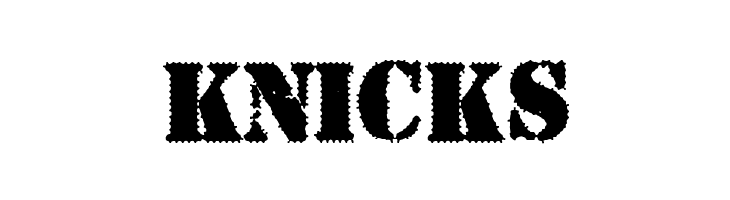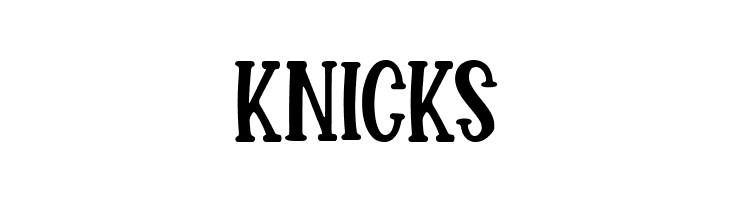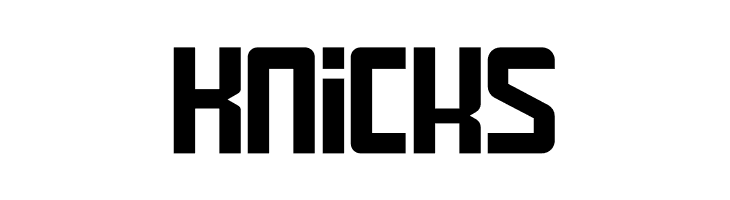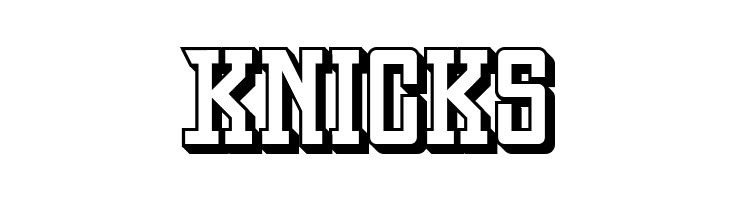
A bold, elegant serif font with high contrast and sharp serifs.
A playful, handwritten font with a whimsical and modern style.
A playful, casual handwritten font with smooth, flowing letterforms.
A playful, casual handwritten font with smooth, flowing lines.
A bold, italic font with a retro arcade style and dynamic, angular design.
A playful, handwritten font with a casual and dynamic style.
A graceful, cursive handwritten font with a modern calligraphic style.
A bold, geometric font with a futuristic and industrial design.
A bold, 3D geometric font with a retro video game aesthetic.
A bold, 3D italic font with a futuristic and dynamic style.
A bold, geometric font with a futuristic and industrial design, featuring high contrast and condensed width.
A bold, angular, and condensed italic font with a futuristic style.
A bold, geometric font with sharp angles and an expanded width.
A bold, angular, and expanded italic font with a modern, dynamic style.
A bold, geometric font with a striped gradient effect, ideal for modern designs.
A bold, italicized font with a futuristic gradient effect created by horizontal lines.
A bold, geometric font with a halftone effect and modern style.
A bold, futuristic font with a halftone effect and italic slant.
A bold, angular, and dynamic font with a futuristic and energetic style.
A bold, geometric font with a futuristic and digital aesthetic.
A bold, angular, and futuristic font with sharp geometric lines.
A bold, angular font with a geometric and dynamic style.
A bold, angular, semi-italic font with a modern and dynamic style.
A bold, angular, and italic font with a futuristic and aggressive style.
A bold, geometric font with a strong, industrial aesthetic.
A bold, geometric, italic font with sharp angles and strong visual impact.
A bold, futuristic font with a two-tone gradient effect and geometric design.
A bold, italicized font with a two-tone striped design, exuding a futuristic and dynamic style.
A modern, geometric font with sharp, angular lines and a futuristic style.
A playful, hand-drawn font with bold, irregular strokes and a casual vibe.
An elegant, flowing script font with a classic calligraphic style.
A flowing, cursive script font with elegant, interconnected strokes.
An artistic and whimsical font with elongated, flowing letterforms.
A bold, flowing script font with high contrast and elegant curves.